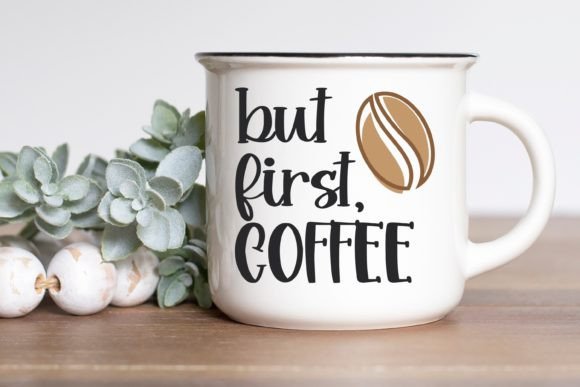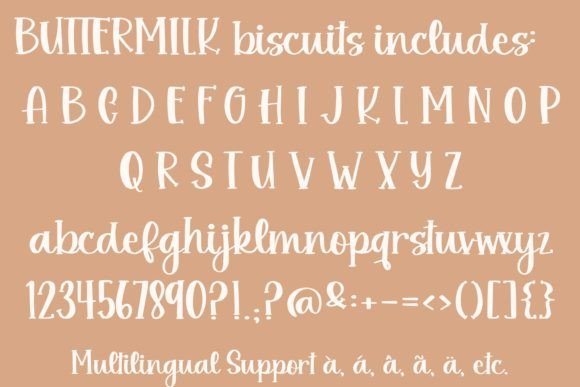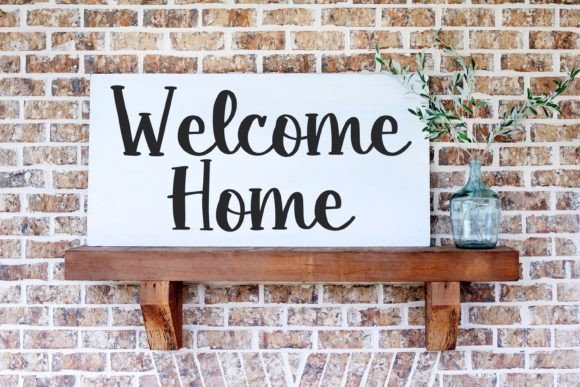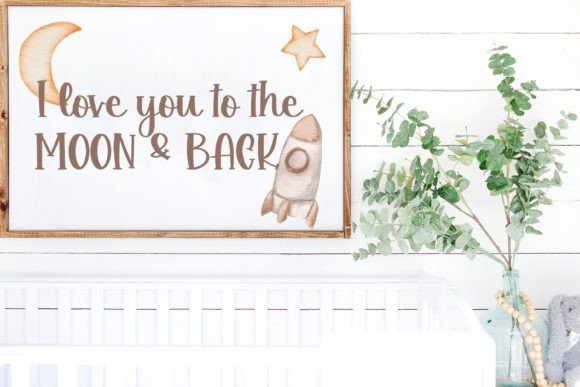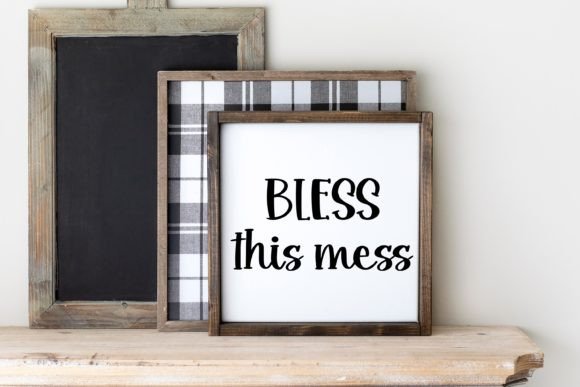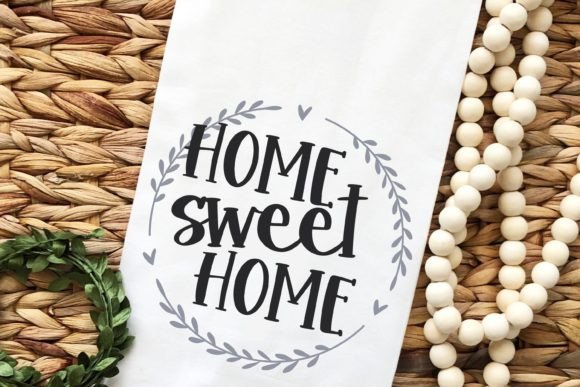
Introducing Buttermilk Biscuits: The Charming Farmhouse Handwritten Font for Cricut
Are you looking for a font that can add a touch of warmth and authenticity to your creative projects? Look no further than Buttermilk Biscuits, our delightful farmhouse handwritten font designed specifically for Cricut. This charming font is perfect for crafters, designers, and DIY enthusiasts who want to create rustic and cozy designs that evoke a sense of farmhouse charm.
The Perfect Cricut Font for Your SVG Needs
Buttermilk Biscuits is a handwritten font that is specifically designed for Cricut, making it an ideal choice for all your Cricut Font SVG needs. With its playful and fun handwriting style, this font is sure to bring a touch of personality to your crafts. Whether you’re designing signs, stationery, or handmade cards, this versatile and enchanting font will surely impress.
A Versatile Font for Various Creative Projects
Buttermilk Biscuits is a versatile font that can be used for a variety of creative projects. Its farmhouse style makes it perfect for designing rustic signs, personalized stationery, and handmade cards. You can also use it to create cozy and inviting designs for your home decor, such as wall art, banners, and garlands.
Key Features of Buttermilk Biscuits Font
- Handwritten style: Buttermilk Biscuits has a playful and fun handwritten style that adds a touch of warmth and authenticity to your designs.
- Specifically designed for Cricut: This font is designed specifically for Cricut, making it easy to use for all your Cricut Font SVG needs.
- Farmhouse style: Buttermilk Biscuits has a charming farmhouse style that is perfect for designing rustic and cozy designs.
- Versatile: This font can be used for a variety of creative projects, from signs and stationery to handmade cards and home decor.
How to Use Buttermilk Biscuits Font in Your Cricut Projects
Tips and Tricks for Getting the Most Out of Buttermilk Biscuits Font
- Experiment with different colors: Buttermilk Biscuits font looks great in a variety of colors, from classic black and white to more bold and bright colors.
- Pair it with other fonts: Try pairing Buttermilk Biscuits font with other fonts to create a unique and interesting design.
- Use it for DIY projects: Buttermilk Biscuits font is perfect for DIY projects, such as making handmade cards and gift tags.
Why Choose Buttermilk Biscuits Font?
Buttermilk Biscuits font is a must-have for any font enthusiast or DIY enthusiast. Its charming farmhouse style and playful handwritten style make it perfect for adding a touch of warmth and authenticity to your designs. With its versatility and ease of use, this font is sure to become a favorite in your font library.
In conclusion, Buttermilk Biscuits font is a charming farmhouse handwritten font that is perfect for Cricut users. Its playful and fun handwriting style, versatility, and ease of use make it a must-have for any designer or crafter. Whether you’re designing rustic signs, personalized stationery, or handmade cards, this font is sure to impress. So why wait? Download Buttermilk Biscuits font today and start creating cozy and inviting designs that evoke a sense of farmhouse charm.